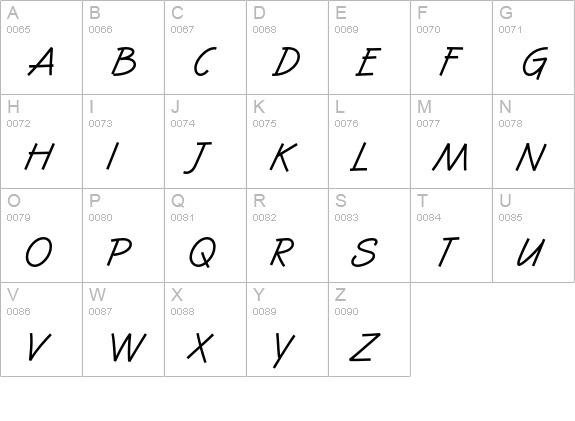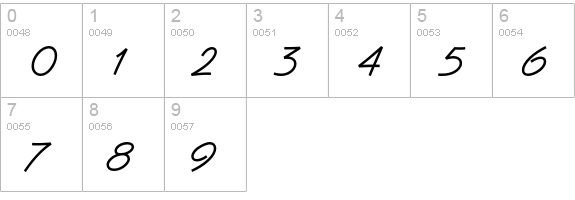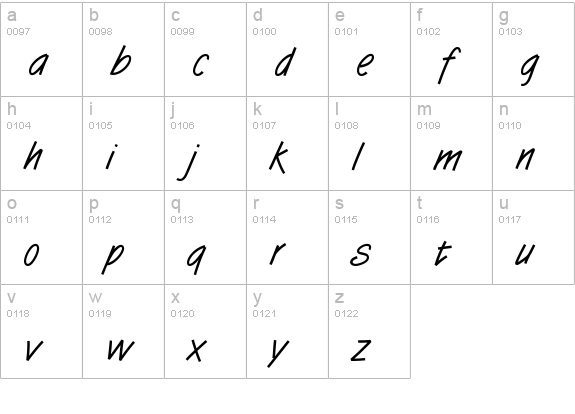
TomboyMedium is a versatile and stylish font that exudes a unique charm. This font strikes the perfect balance between elegance and playfulness, making it ideal for a wide range of design projects. Its medium weight gives it a certain boldness, while still maintaining a sense of sophistication. With its clean lines and smooth curves, TomboyMedium is a font that captures attention and adds a touch of personality to any design. Whether you're creating a logo, designing a website, or crafting a poster, this font will make your text stand out in a captivating way. What makes TomboyMedium even more appealing is that it is freely available to download at FontsMarket.com. This means that you can easily access and use this font without any cost, allowing you to enhance your designs without breaking the bank. The versatility of TomboyMedium is evident in its ability to adapt to different design styles and themes. It can be used for both formal and informal projects, making it a go-to choice for designers who value flexibility. Its legibility and readability make it suitable for both small and large text sizes, ensuring that your message is conveyed clearly and effectively. In addition to its aesthetic appeal, TomboyMedium also offers a wide range of characters and glyphs, including punctuation marks, numerals, and special symbols. This allows you to fully customize and personalize your designs, adding an extra layer of creativity and uniqueness. So, whether you're a professional designer or a creative individual looking to add some flair to your projects, TomboyMedium is the font for you. With its free availability at FontsMarket.com, you can easily incorporate this font into your designs and take them to the next level. Embrace the charm and versatility of TomboyMedium and let your creativity soar.